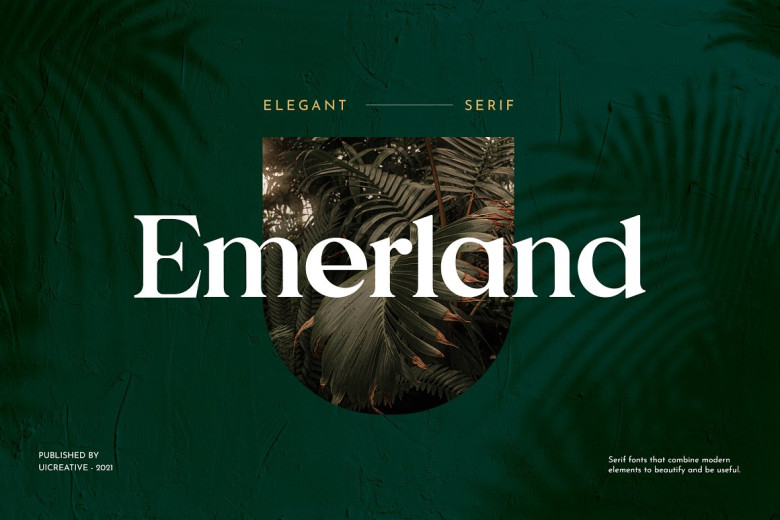
Emerland Font
Introducing our new product the name is Emerland Serif Font. Modern Serif font that feels beautiful classy, elegant, and modern. This font is ideally suited for a wide variety of projects, such as signature, stationery, logo, wedding, typography quotes, magazine or book covers, website headers, clothing, branding, packaging design, and more. Also, fashion-related branding or editorial design displays both masculine and feminine qualities.
Emerland Serif Font